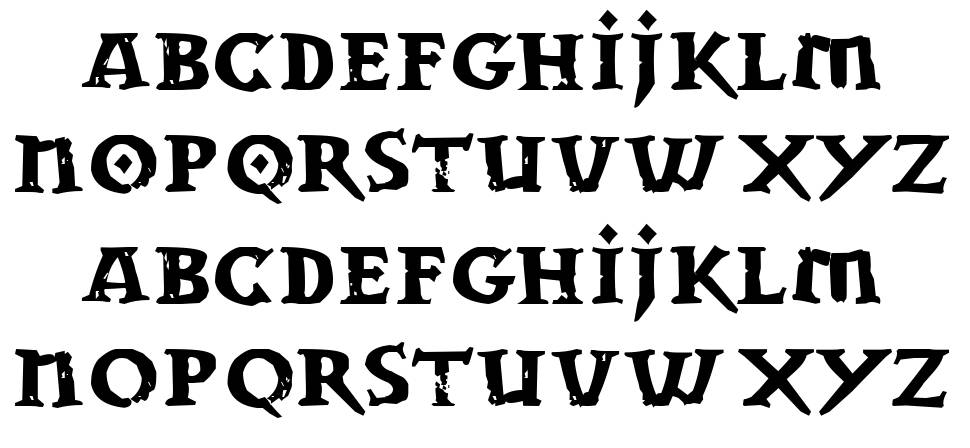
Dwarven Axe Font
Dwarven Axe Font - Web dwarven axe is a weathered, serif title font with grit and stamina. Dwarven axe bb font family was designed by nate piekos and published by blambot. Web complete family of 2 fonts: It's the rusty sign outside an inn full of hobbits—it's the worn.
It's the rusty sign outside an inn full of hobbits—it's the worn. Dwarven axe bb font family was designed by nate piekos and published by blambot. Web dwarven axe is a weathered, serif title font with grit and stamina. Web complete family of 2 fonts:
Dwarven axe bb font family was designed by nate piekos and published by blambot. Web dwarven axe is a weathered, serif title font with grit and stamina. It's the rusty sign outside an inn full of hobbits—it's the worn. Web complete family of 2 fonts:
Web dwarven axe is a weathered, serif title font with grit and stamina. Web complete family of 2 fonts: Dwarven axe bb font family was designed by nate piekos and published by blambot. It's the rusty sign outside an inn full of hobbits—it's the worn.
Web dwarven axe is a weathered, serif title font with grit and stamina. Web complete family of 2 fonts: It's the rusty sign outside an inn full of hobbits—it's the worn. Dwarven axe bb font family was designed by nate piekos and published by blambot.
It's the rusty sign outside an inn full of hobbits—it's the worn. Dwarven axe bb font family was designed by nate piekos and published by blambot. Web complete family of 2 fonts: Web dwarven axe is a weathered, serif title font with grit and stamina.
Web complete family of 2 fonts: Dwarven axe bb font family was designed by nate piekos and published by blambot. Web dwarven axe is a weathered, serif title font with grit and stamina. It's the rusty sign outside an inn full of hobbits—it's the worn.
It's the rusty sign outside an inn full of hobbits—it's the worn. Web dwarven axe is a weathered, serif title font with grit and stamina. Dwarven axe bb font family was designed by nate piekos and published by blambot. Web complete family of 2 fonts:
Dwarven axe bb font family was designed by nate piekos and published by blambot. Web complete family of 2 fonts: Web dwarven axe is a weathered, serif title font with grit and stamina. It's the rusty sign outside an inn full of hobbits—it's the worn.
Dwarven axe bb font family was designed by nate piekos and published by blambot. Web dwarven axe is a weathered, serif title font with grit and stamina. It's the rusty sign outside an inn full of hobbits—it's the worn. Web complete family of 2 fonts:
Web complete family of 2 fonts: Web dwarven axe is a weathered, serif title font with grit and stamina. It's the rusty sign outside an inn full of hobbits—it's the worn. Dwarven axe bb font family was designed by nate piekos and published by blambot.
Web dwarven axe is a weathered, serif title font with grit and stamina. Dwarven axe bb font family was designed by nate piekos and published by blambot. It's the rusty sign outside an inn full of hobbits—it's the worn. Web complete family of 2 fonts:
It's the rusty sign outside an inn full of hobbits—it's the worn. Dwarven axe bb font family was designed by nate piekos and published by blambot. Web dwarven axe is a weathered, serif title font with grit and stamina.